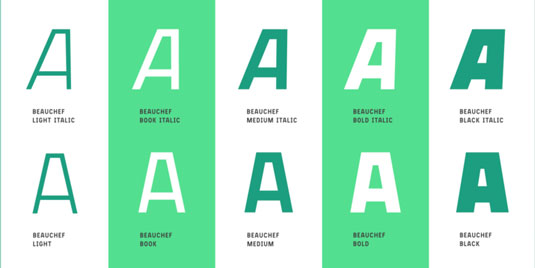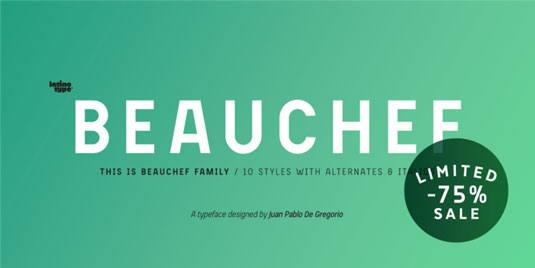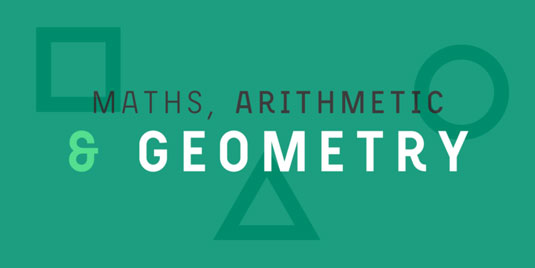
Font of the day: Beauchef
Every day we showcase the best fonts on the web. Today it's Beauchef by Juan Pablo De Gregorio.
Beauchef by Juan Pablo De Gregorio
Chilean graphic designer and typographer Juan Pablo De Gregorio is behind today's typeface of choice, Beauchef. A sans serif typeface, this design was originally created to meet the needs of the Center for Mathematical Modeling, University of Chile.